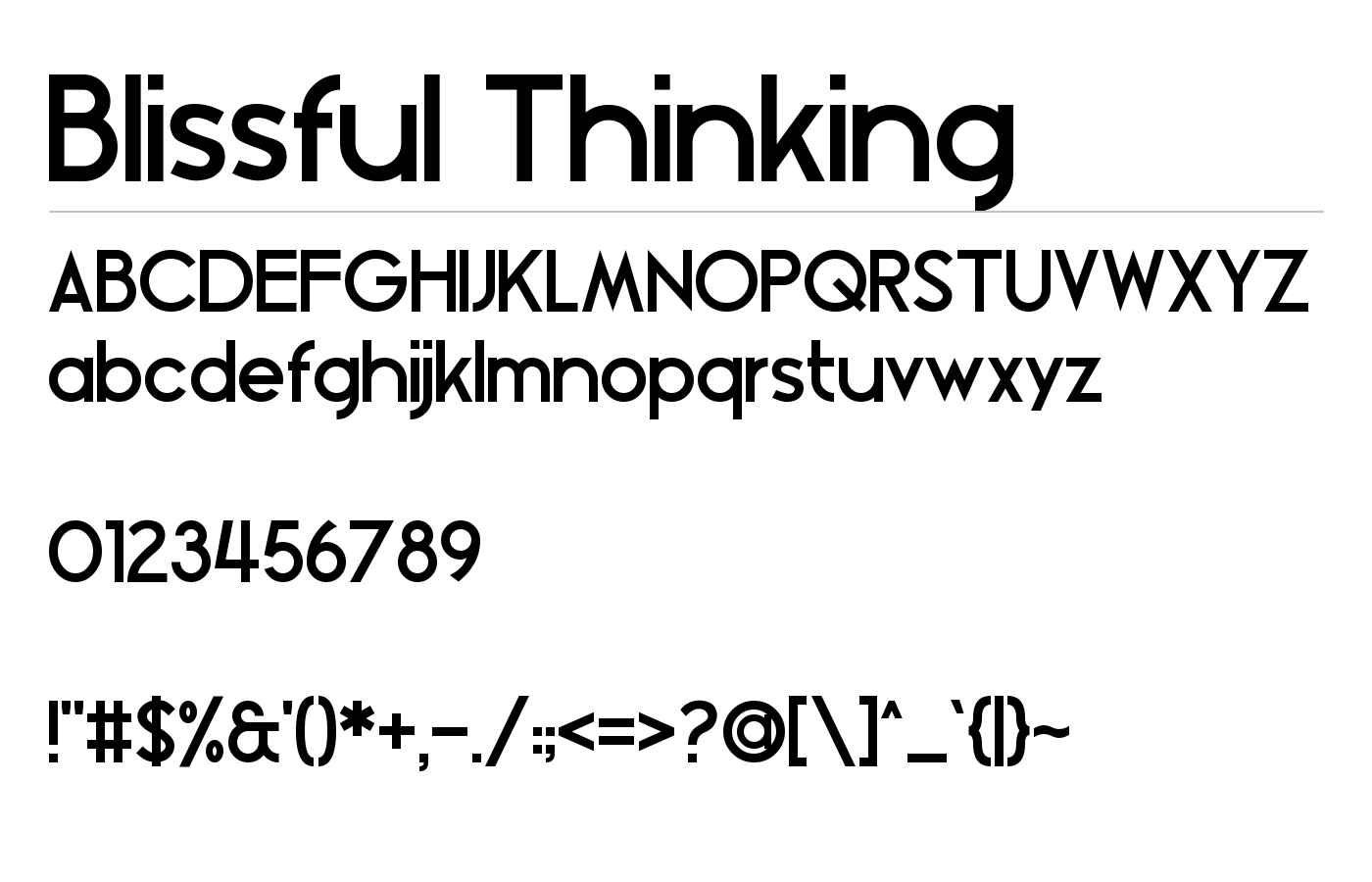
Blissful Thinking is a clean, modern sans serif font with a balanced, upright structure and medium weight that gives it a confident yet friendly feel. Its geometric shapes and well-proportioned letterforms, including distinctive single-story “a” and “g,” make it highly readable and versatile for both headlines and body text. This font works great for contemporary branding, editorial layouts, and digital projects seeking a professional, approachable tone.
Blissful Thinking Font